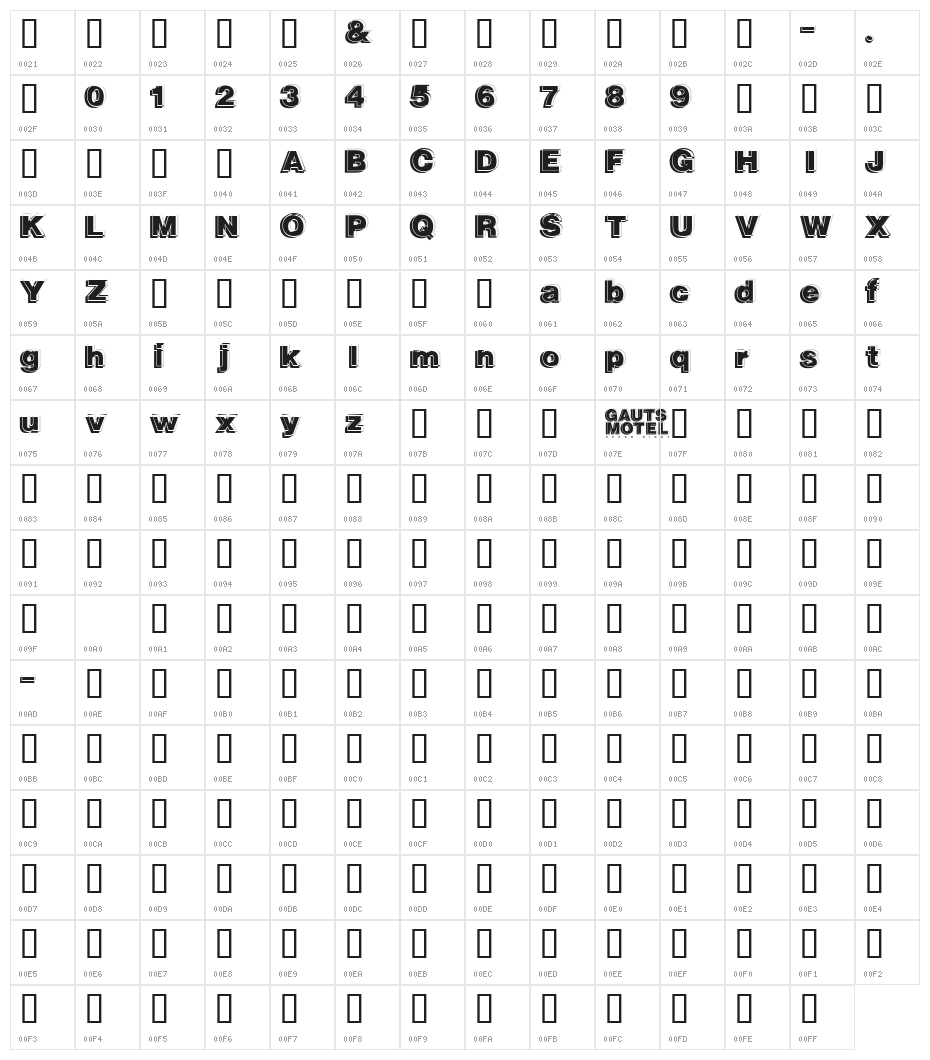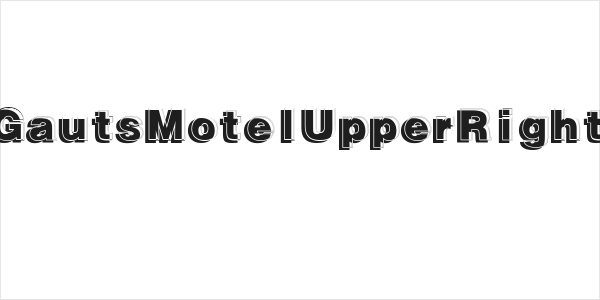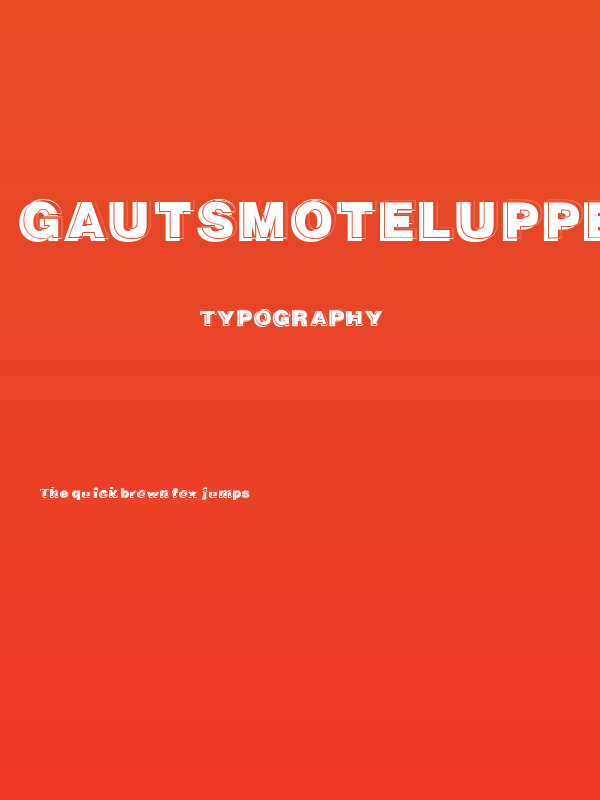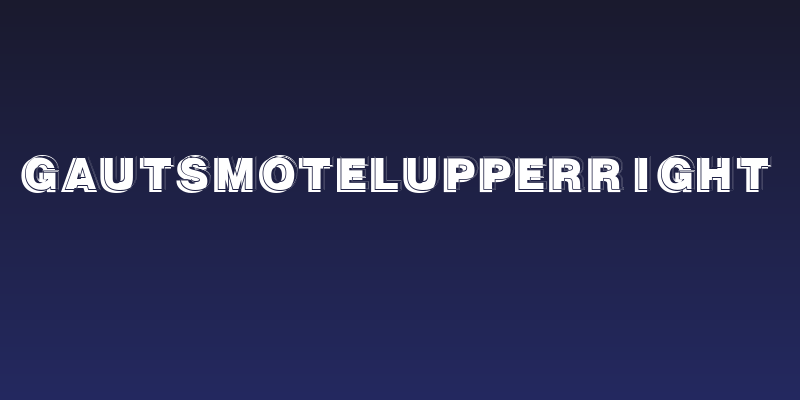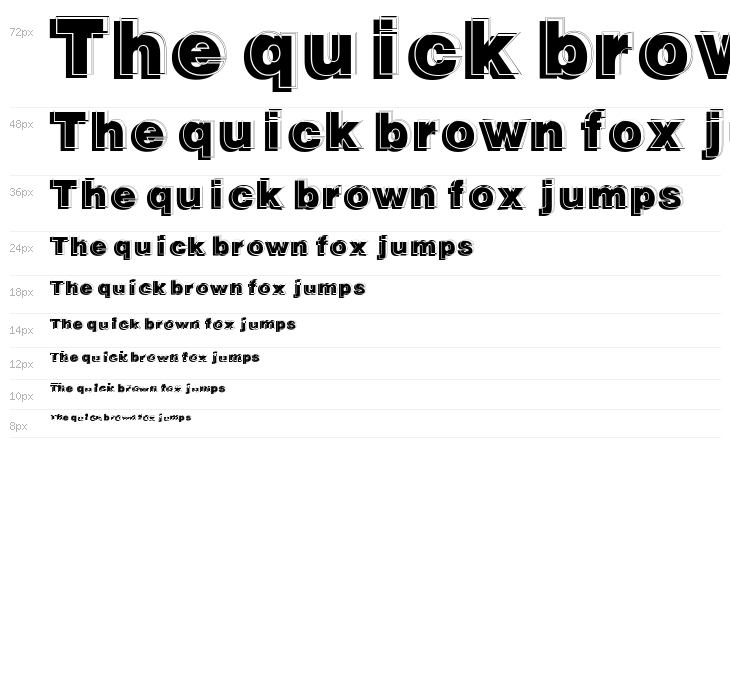
GautsMotelUpperRight Font
GautsMotelUpperRight Description
This bold, decorative font features a striking 3D shadow effect that adds depth and dimension to each character. The uppercase and lowercase letters maintain a consistent, geometric structure with clean lines and sharp edges. The numerals and special characters are designed to match the boldness and style of the alphabet, making it a cohesive and visually impactful typeface. The font's unique shadowing gives it a dynamic and eye-catching appearance, ideal for making a statement.